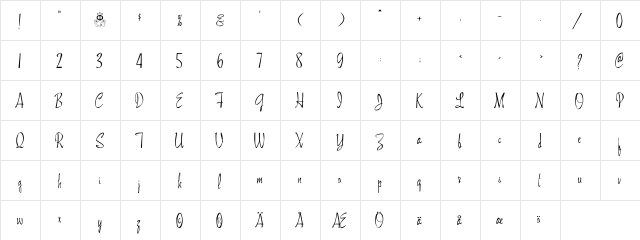
Maidstone Wd Regular
Design Context for Maidstone Wd Typeface
Maidstone Wd is a composed and adaptable typeface that performs quietly and consistently across a wide range of design contexts.